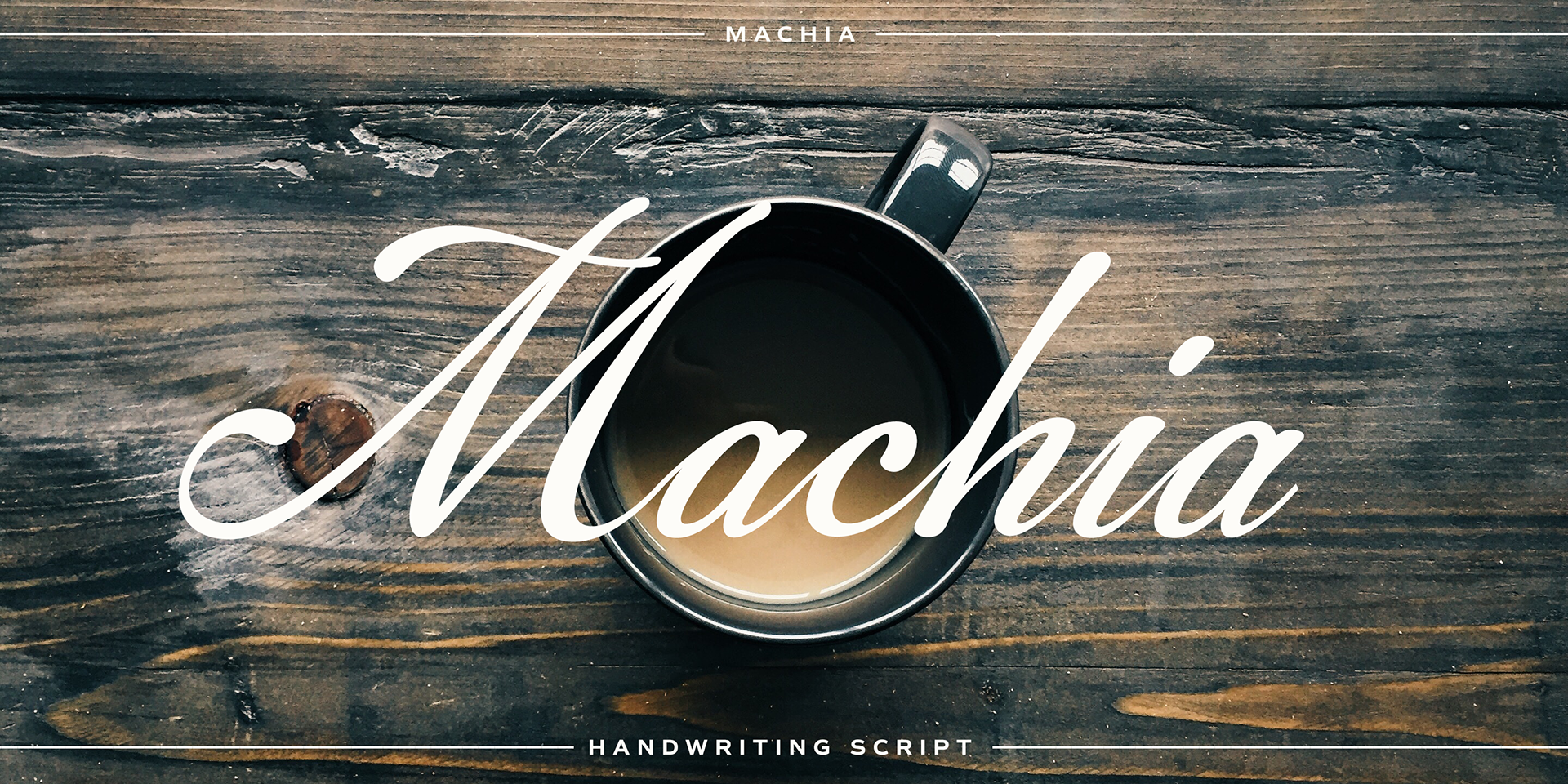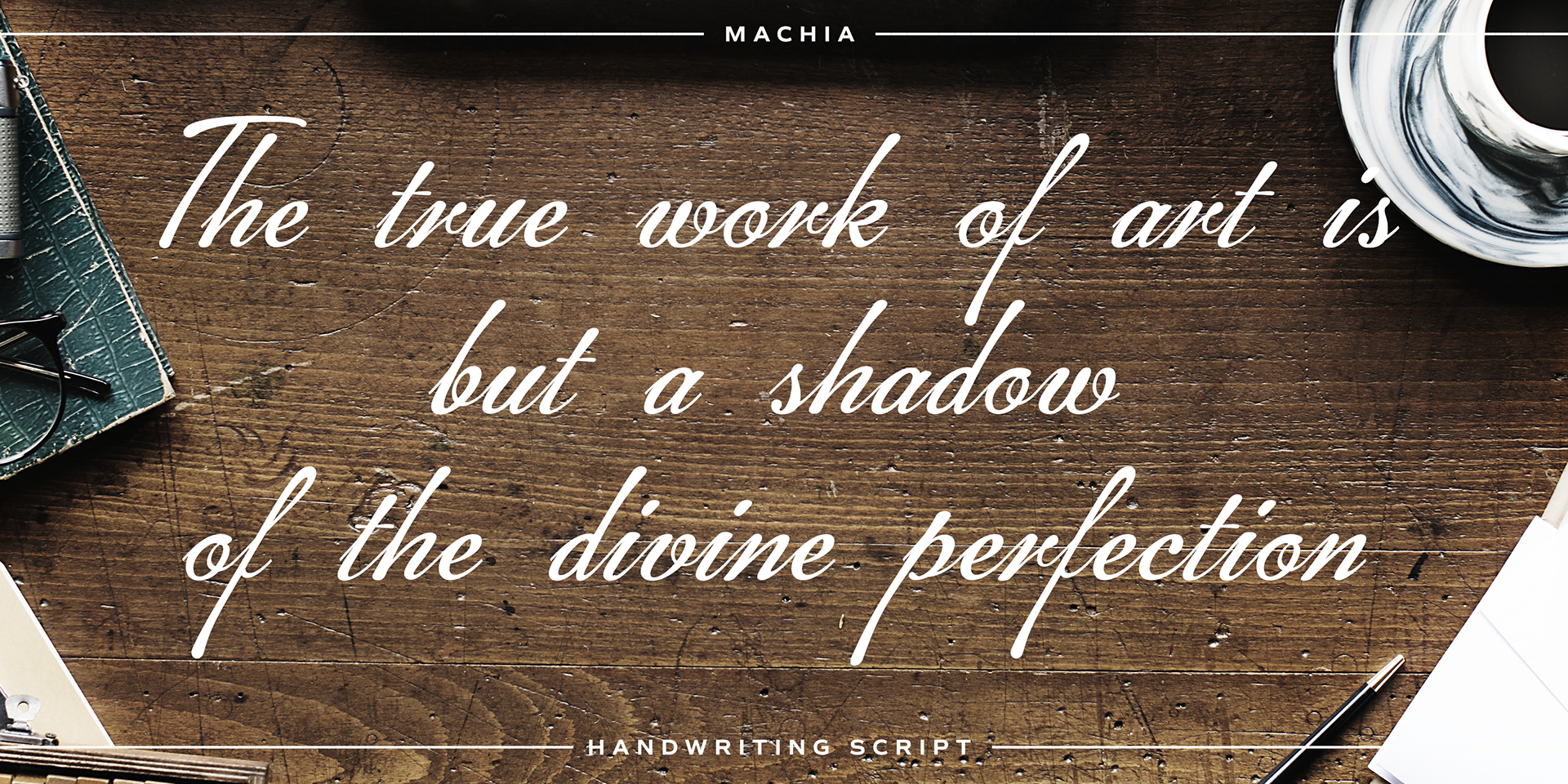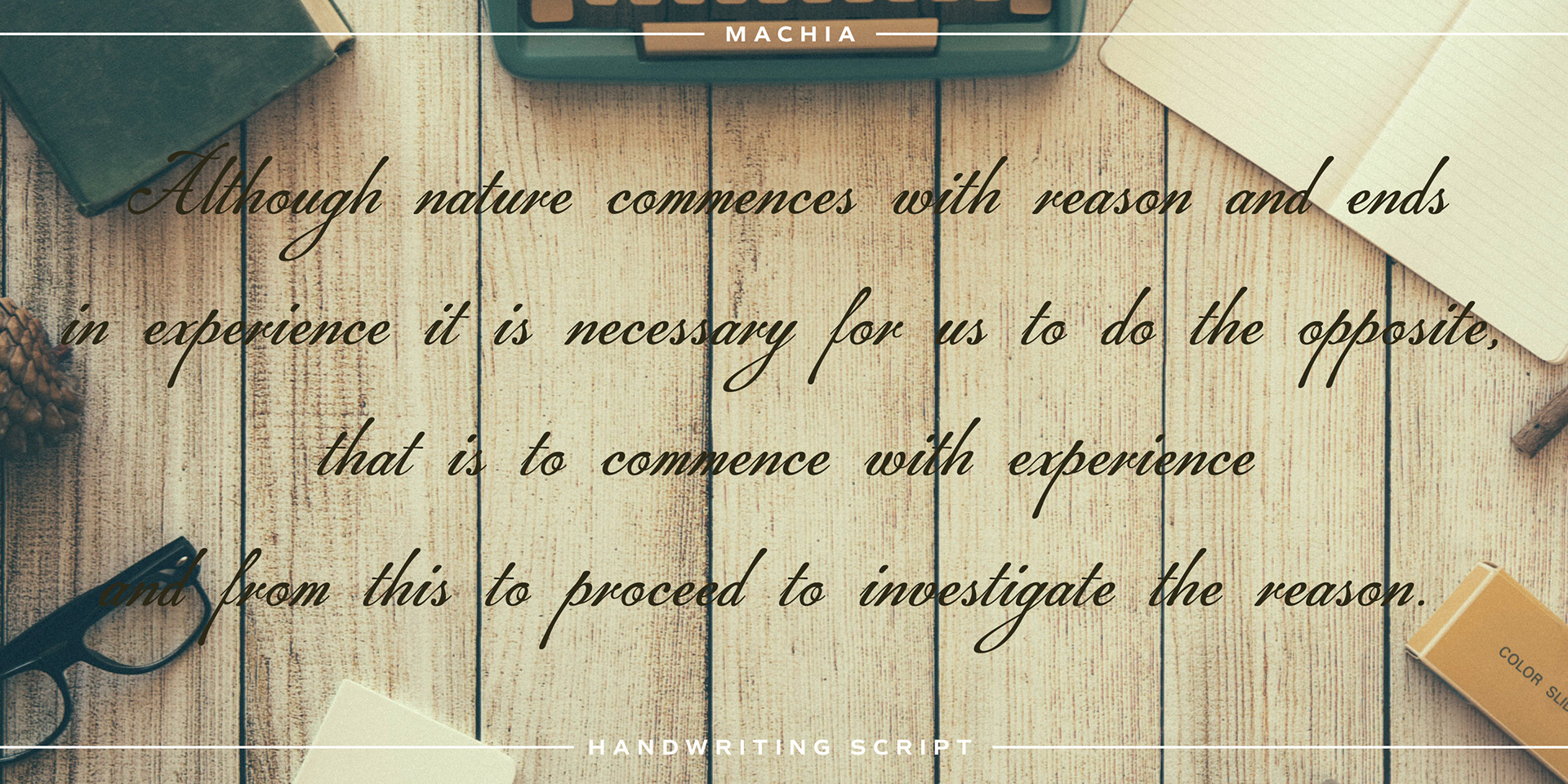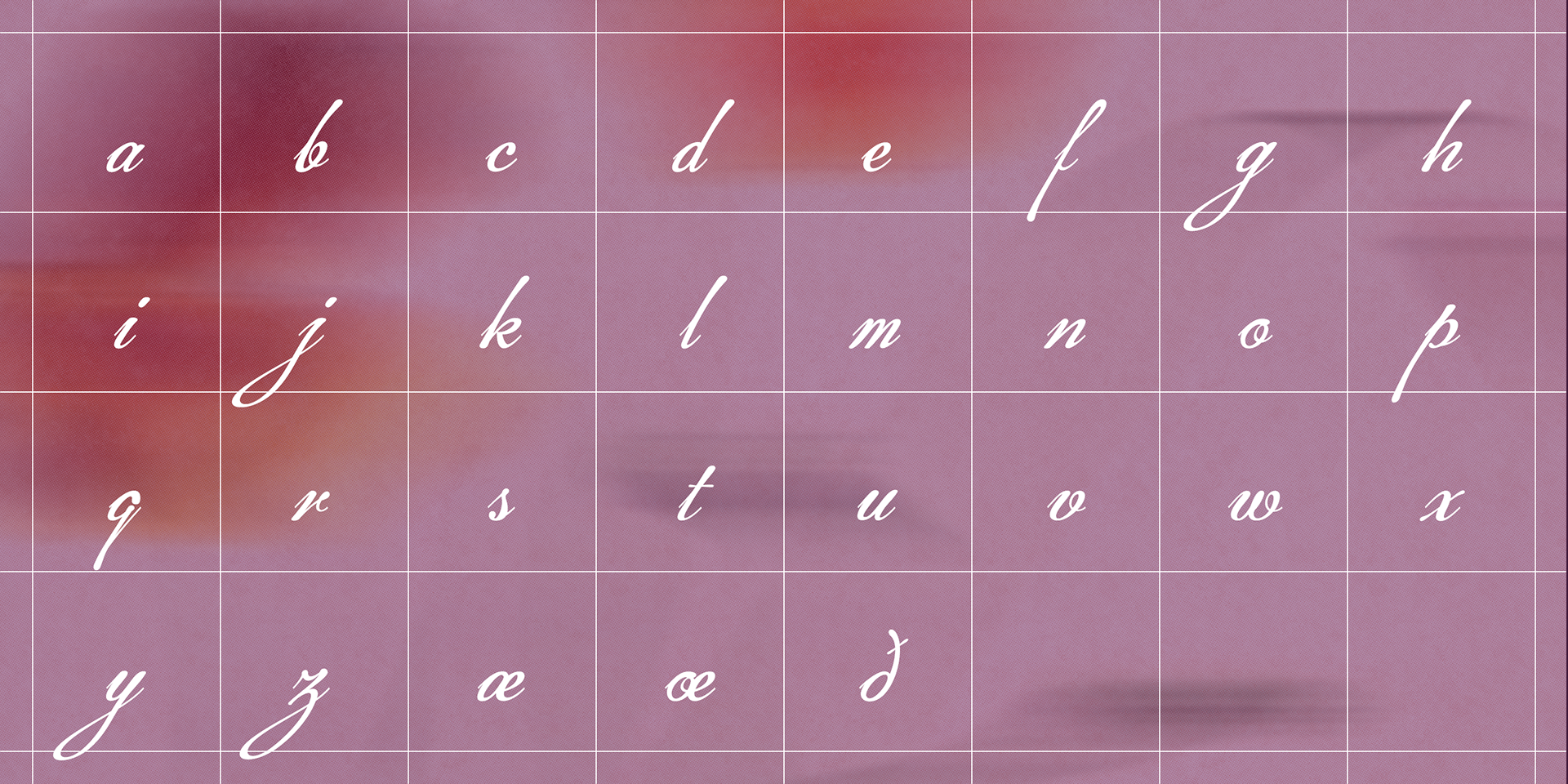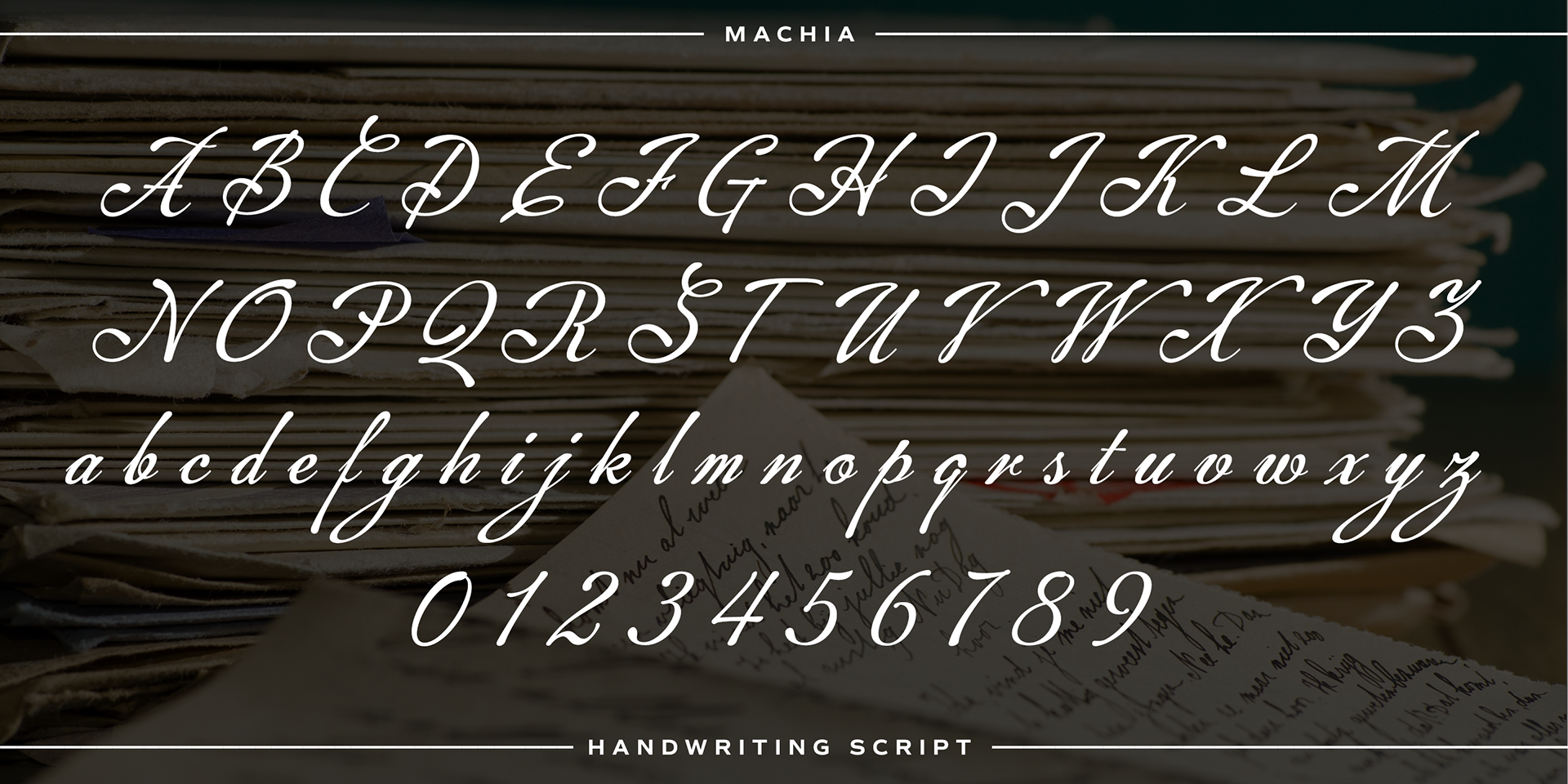
Machia
A handwritten script font overflowing with rich, inky strokes.
Machia was recognized as one of MyFonts’ Rising Stars in September 2006, celebrated for its expressive and fluid character.